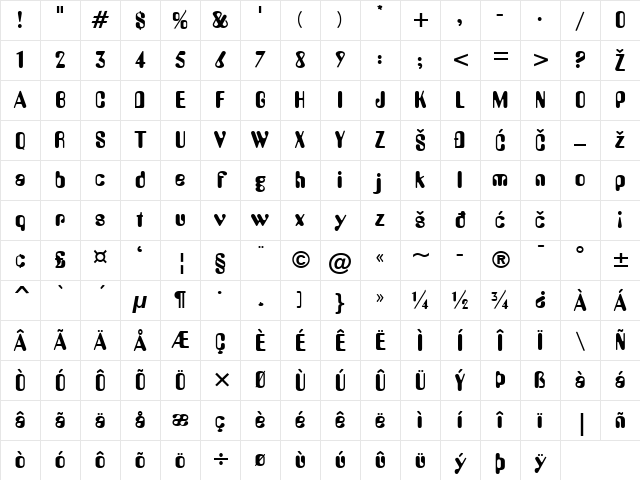
Amelia Regular
Amelia Family
Design Context for Amelia
Amelia is a composed and adaptable typeface that performs quietly and consistently across a wide range of design contexts.